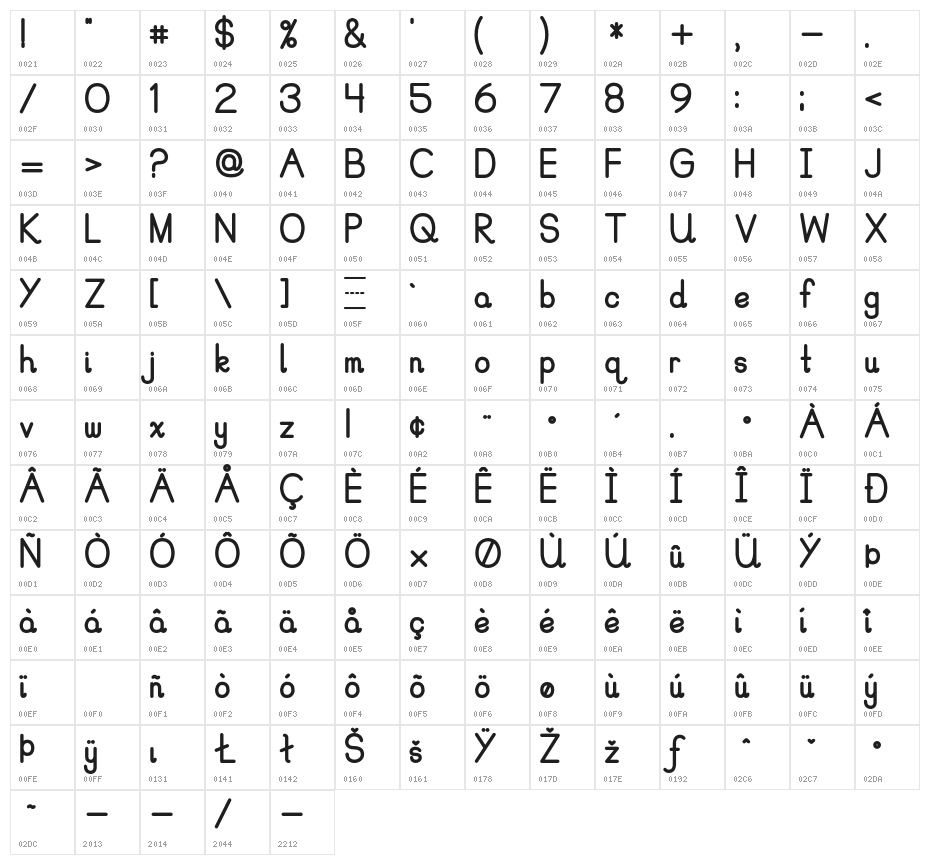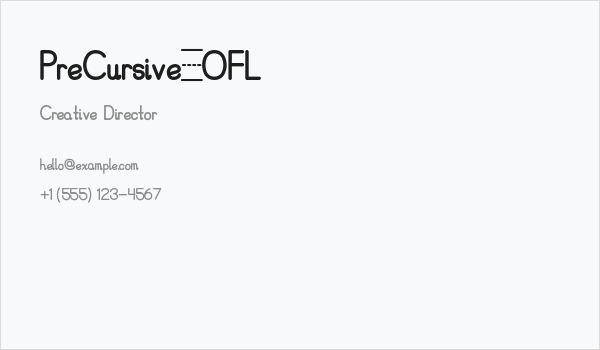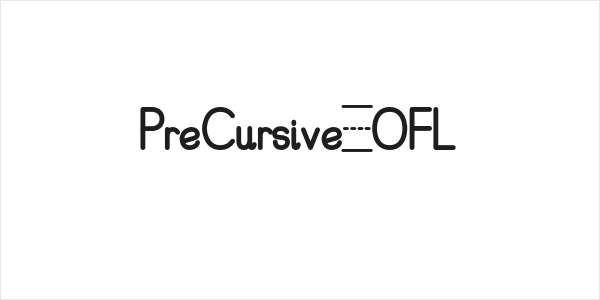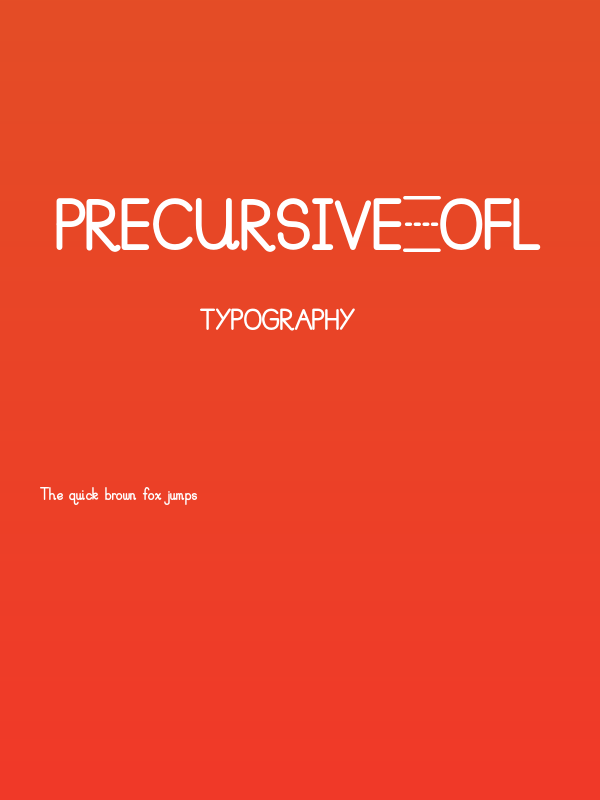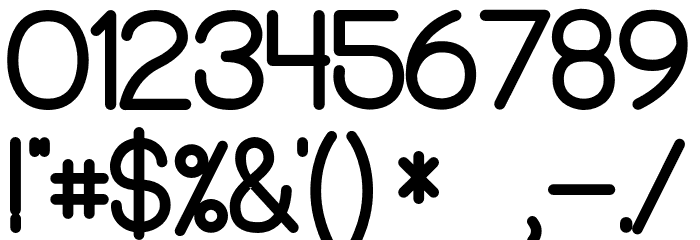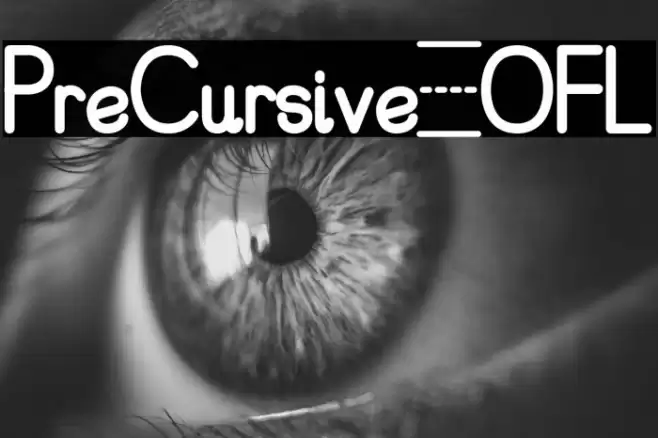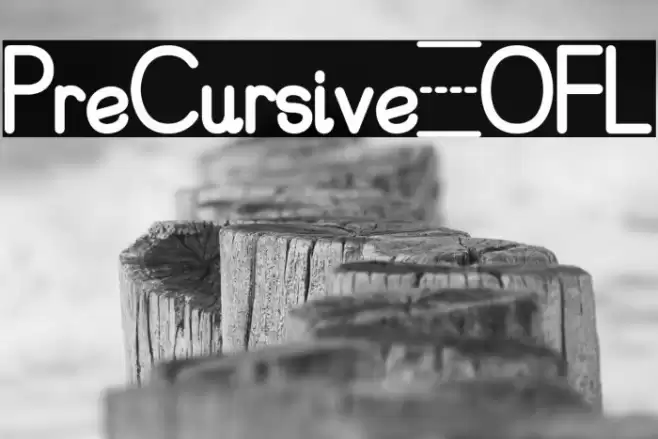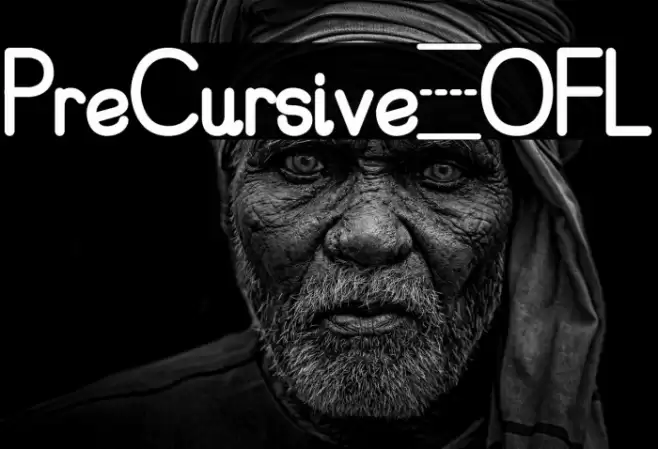
PreCursive_OFL Font
| Estilo general | Playful |
| Caso de uso | Educational materials, Children's books, Casual branding |
| Proyectos propuestos | Ideal for children's books, educational materials, casual branding, and playful designs. |